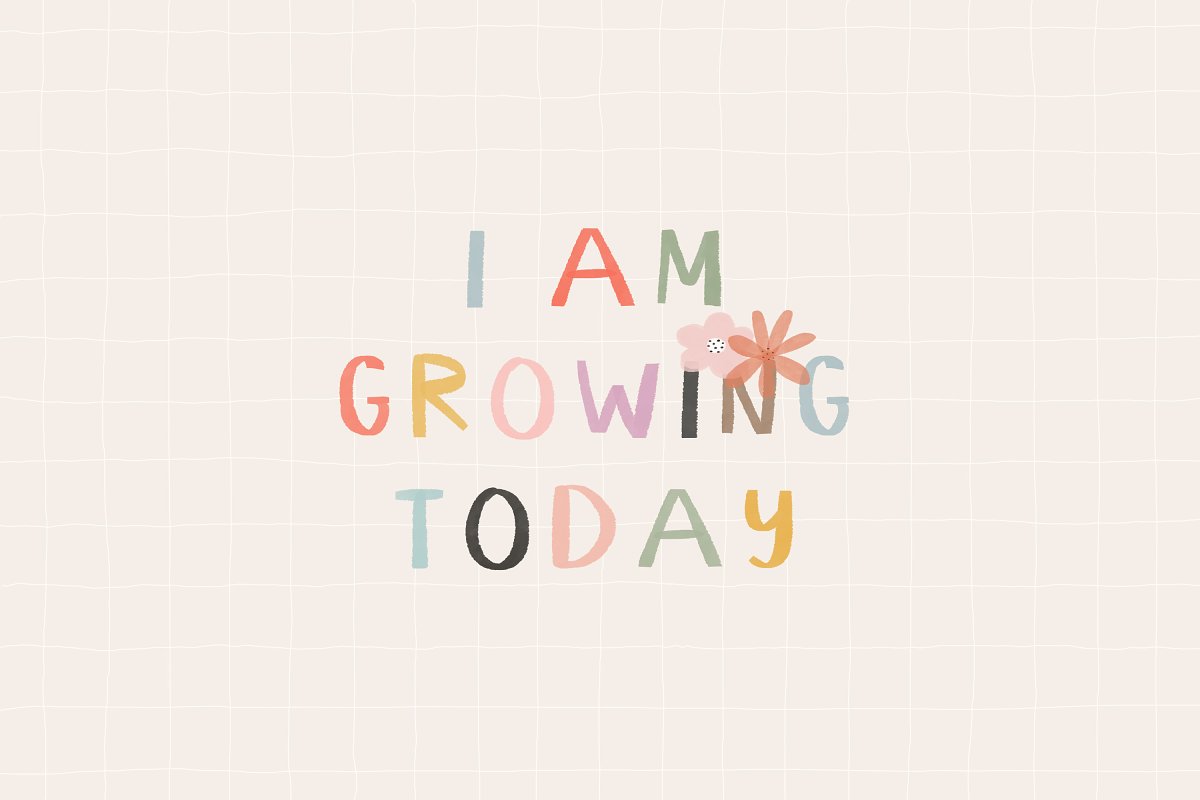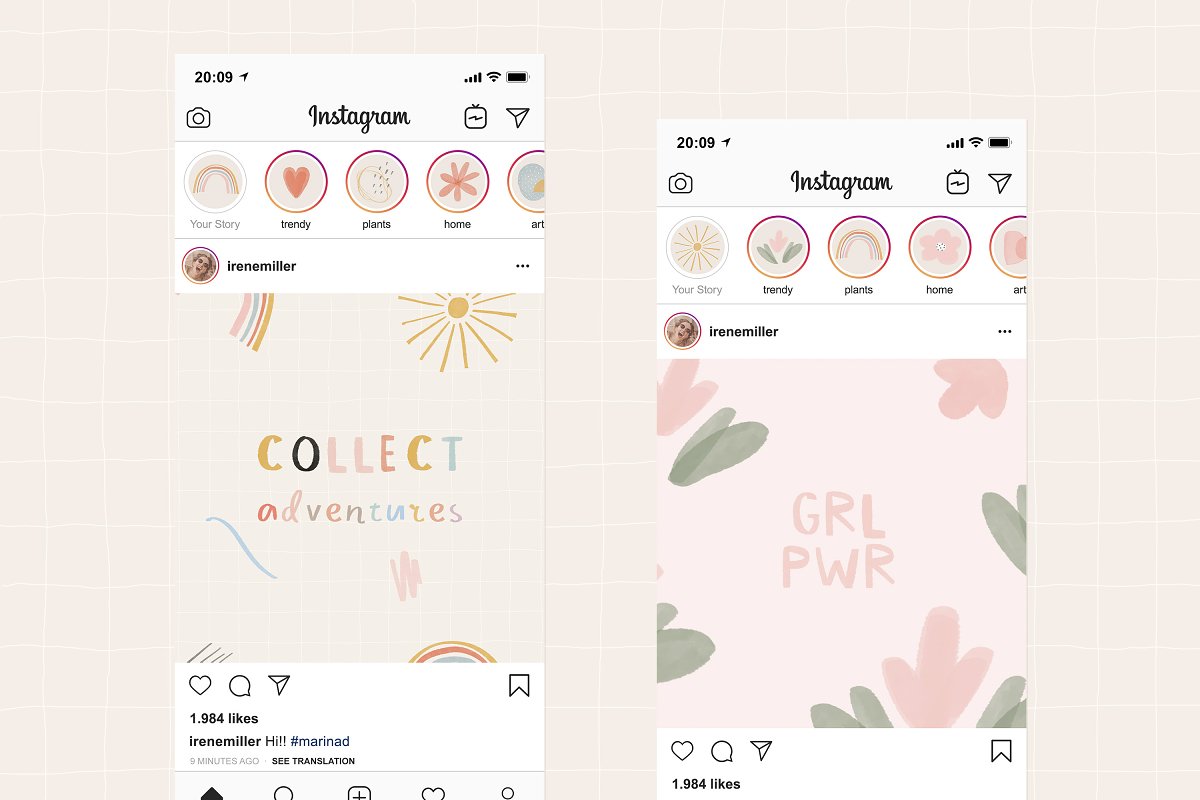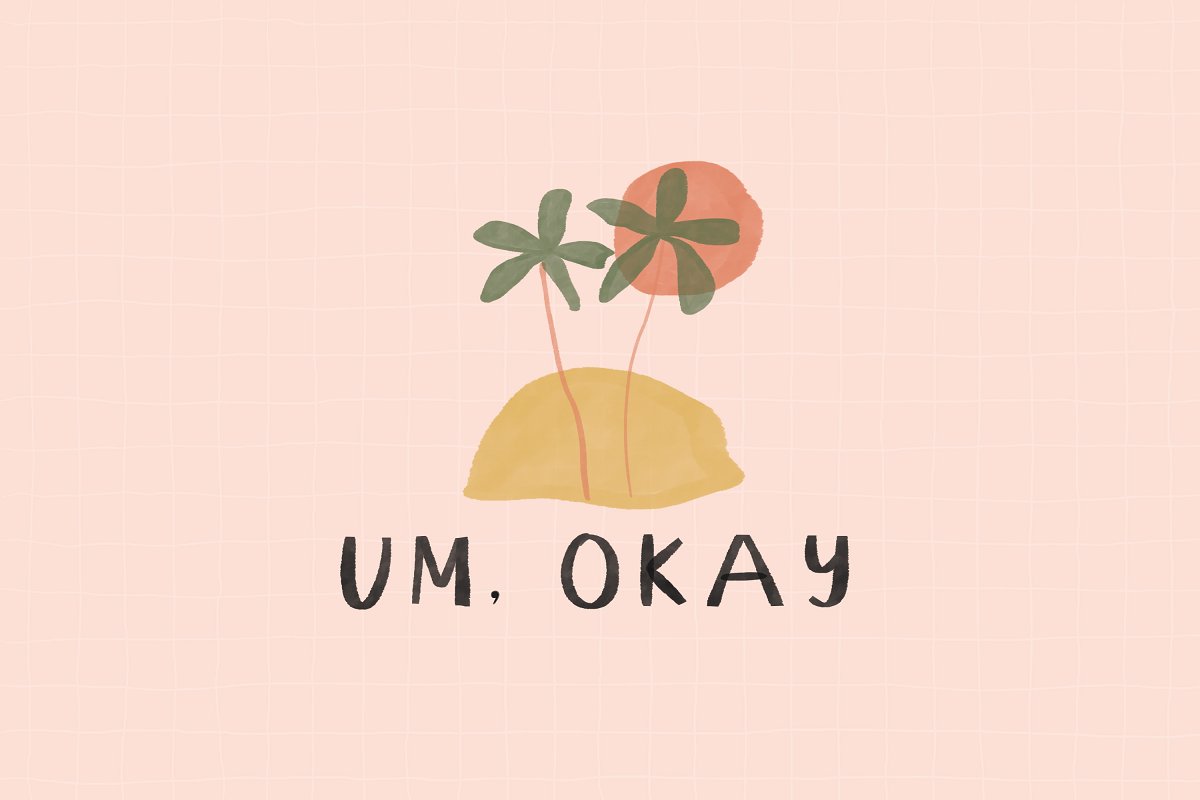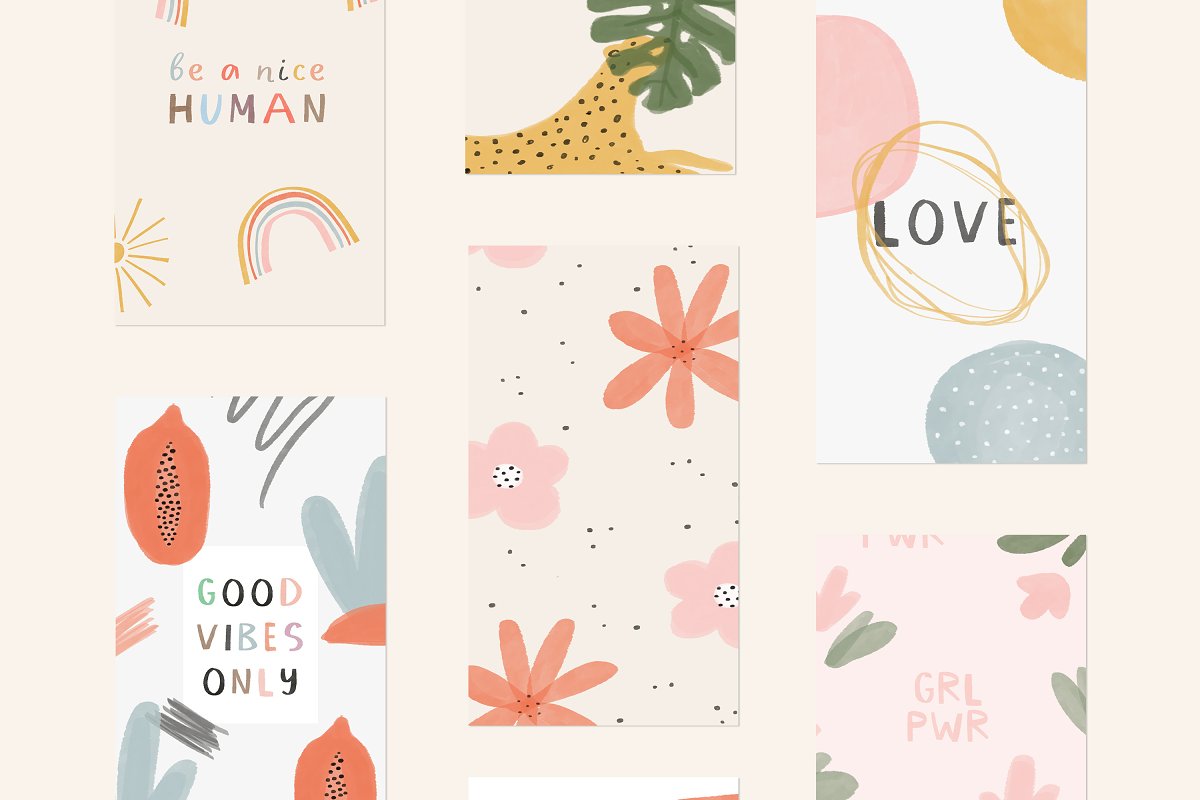
About the Quotable Color Font
Please note: The SVG font requires Photoshop CC 2017+, Illustrator CC 2018+ or Procreate 5 to use, The vector version is in a traditional font format and are widely supported, Quotable is a new collection of display sans serif typeface with illustrations, Perfect for branding, social media templates, stories, cards, posters and other designs, So sweet and lovely :)YOU GET:Quotable SVG Color Font: upper and lowercase characters, number 0-9 and a range of punctuation and symbols (OTF only);Quotable SVG Watercolor Font: upper and lowercase characters, number 0-9 and a range of punctuation and symbols (OTF only);Quotable Vector Solid Font: upper and lowercase characters, number 0-9 and a range of punctuation and symbols (OTF only);50 individual elements (EPS, PNG, JPEG);8 Abstract Instagram Story Templates (JPEG);16 Instagram Story Highlight Icons (PNG)
All the letters of Quotable SVG are raster bitmap font – each letter has been painted a dozen of times, Language support: Currently only English is supported (except vector version), If you’ve got any questions, feel free to contact me, I hope you enjoy it!Elvina